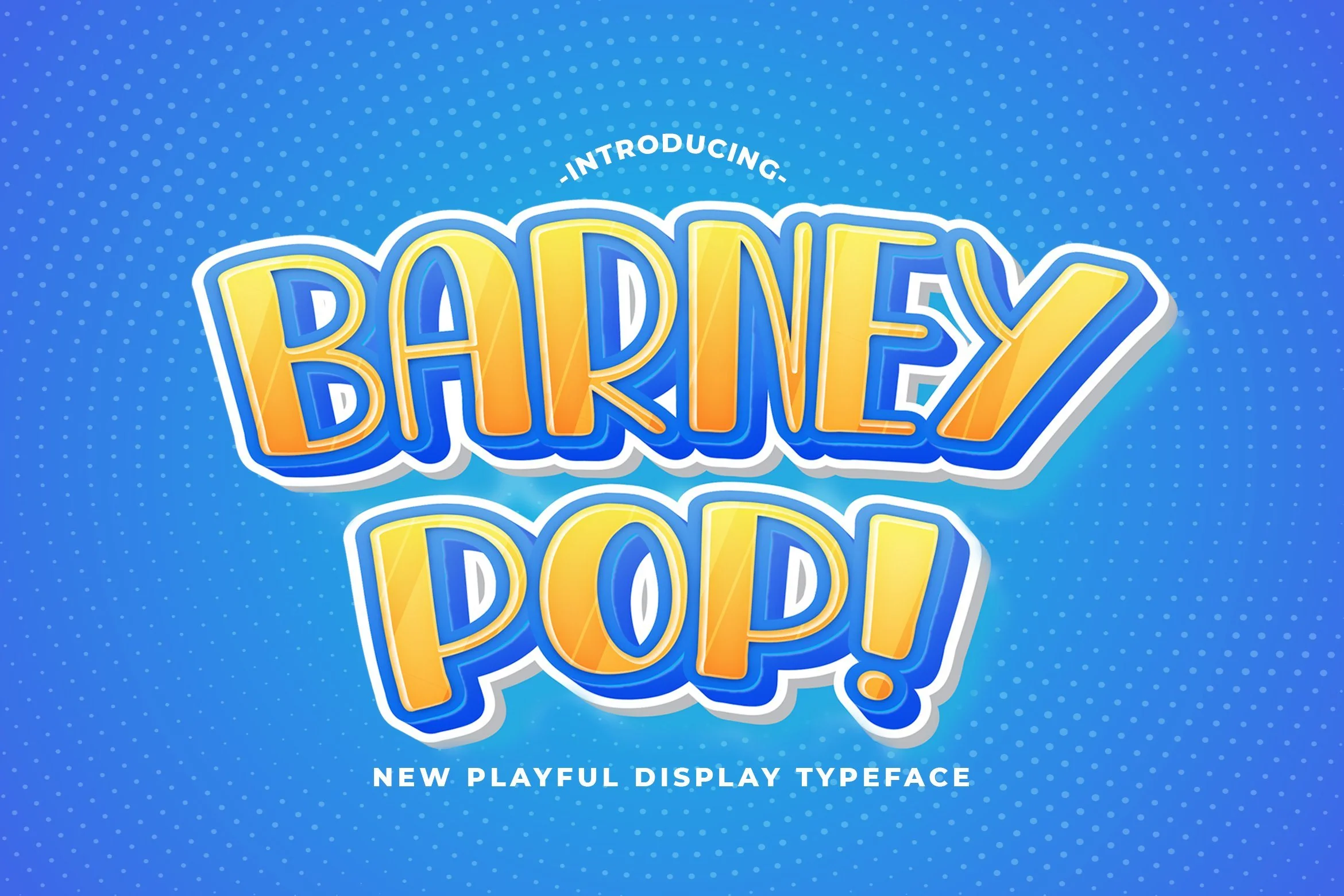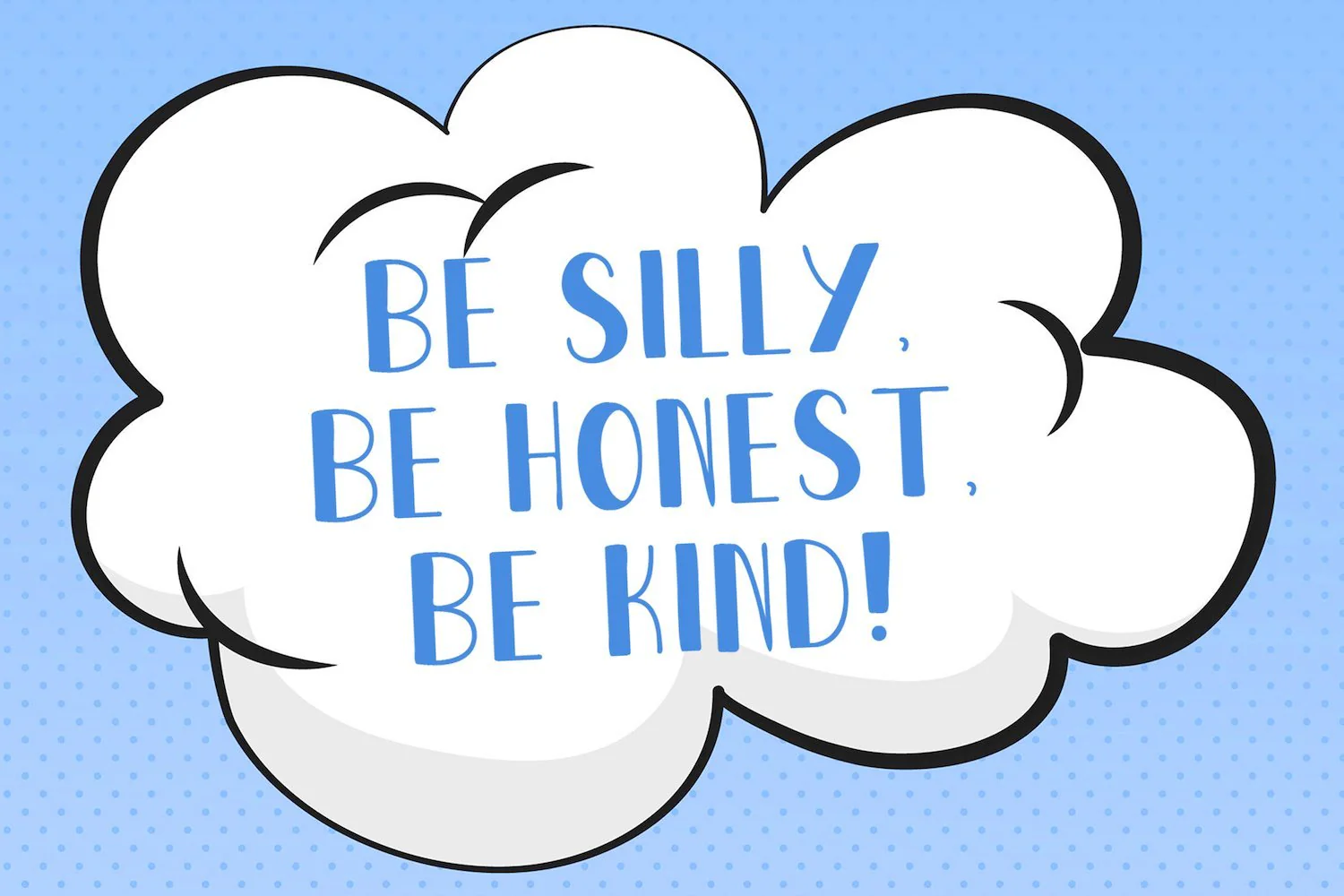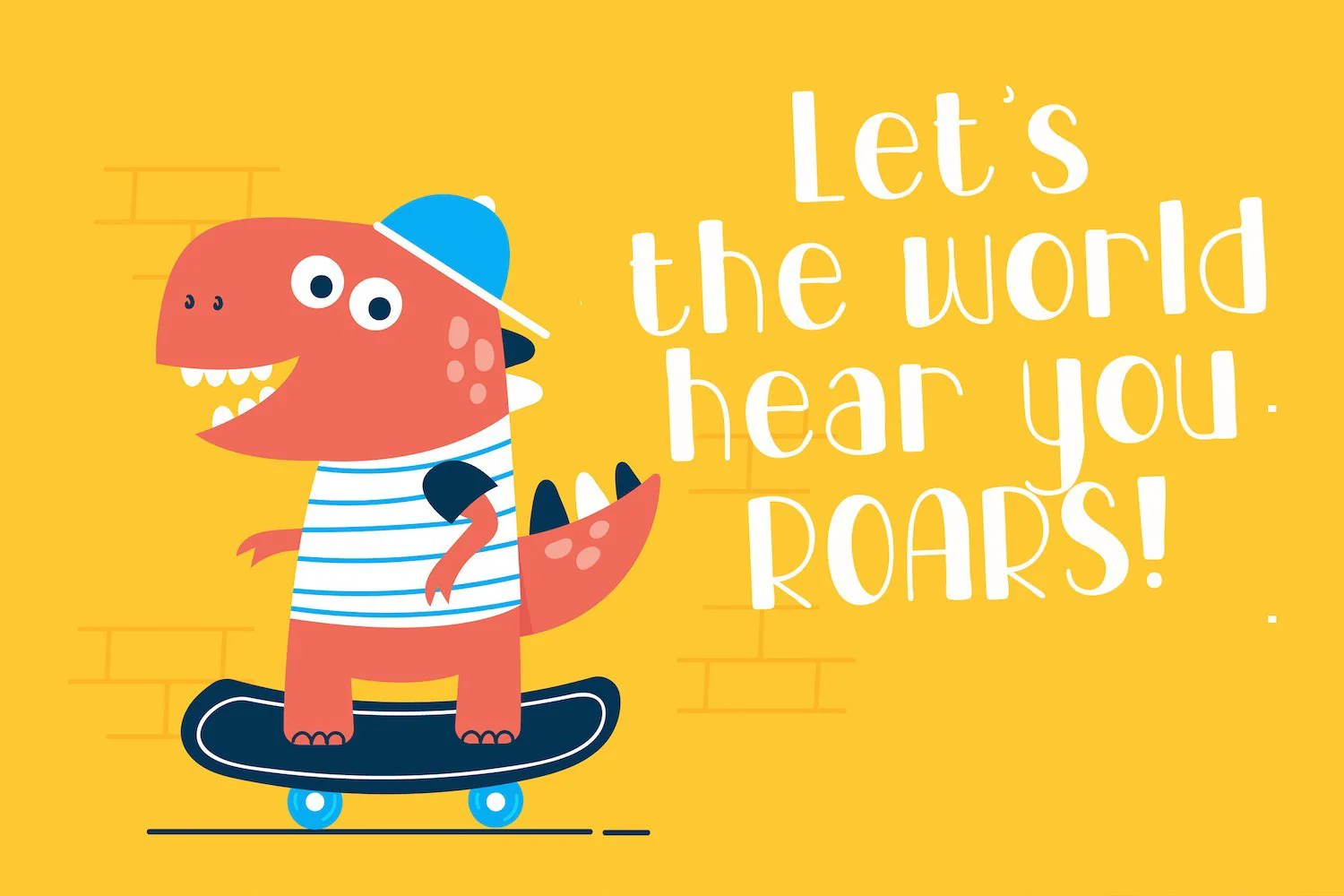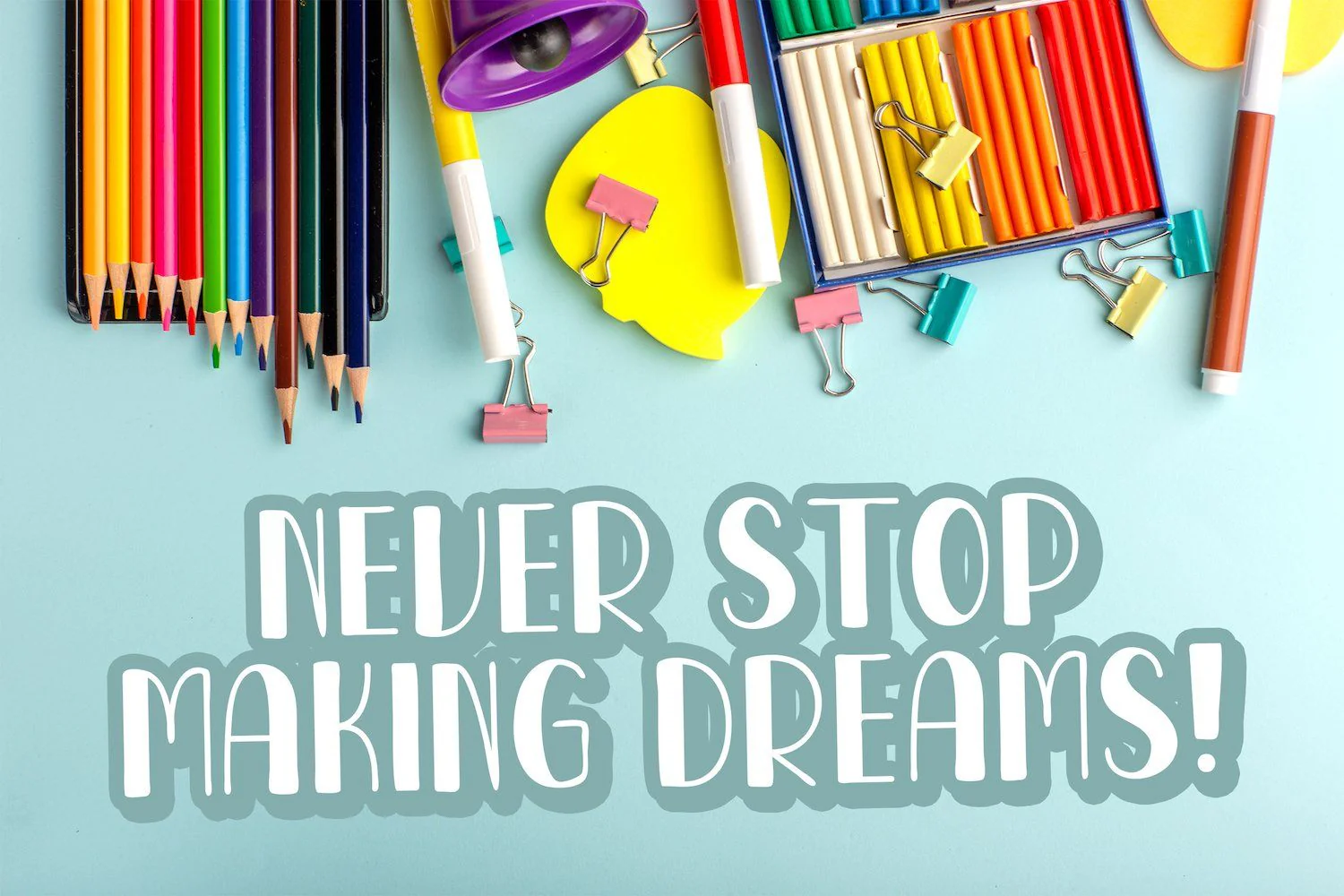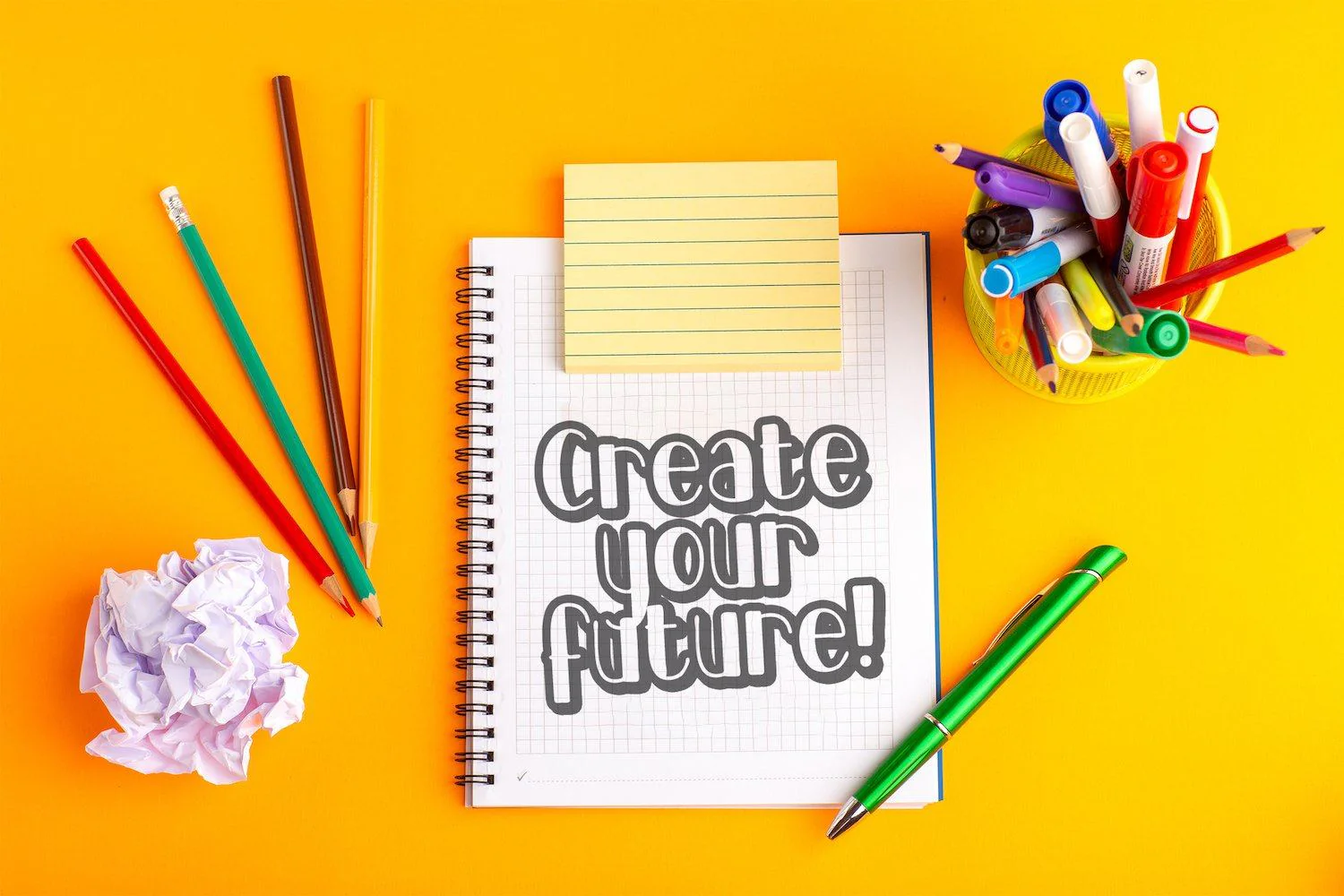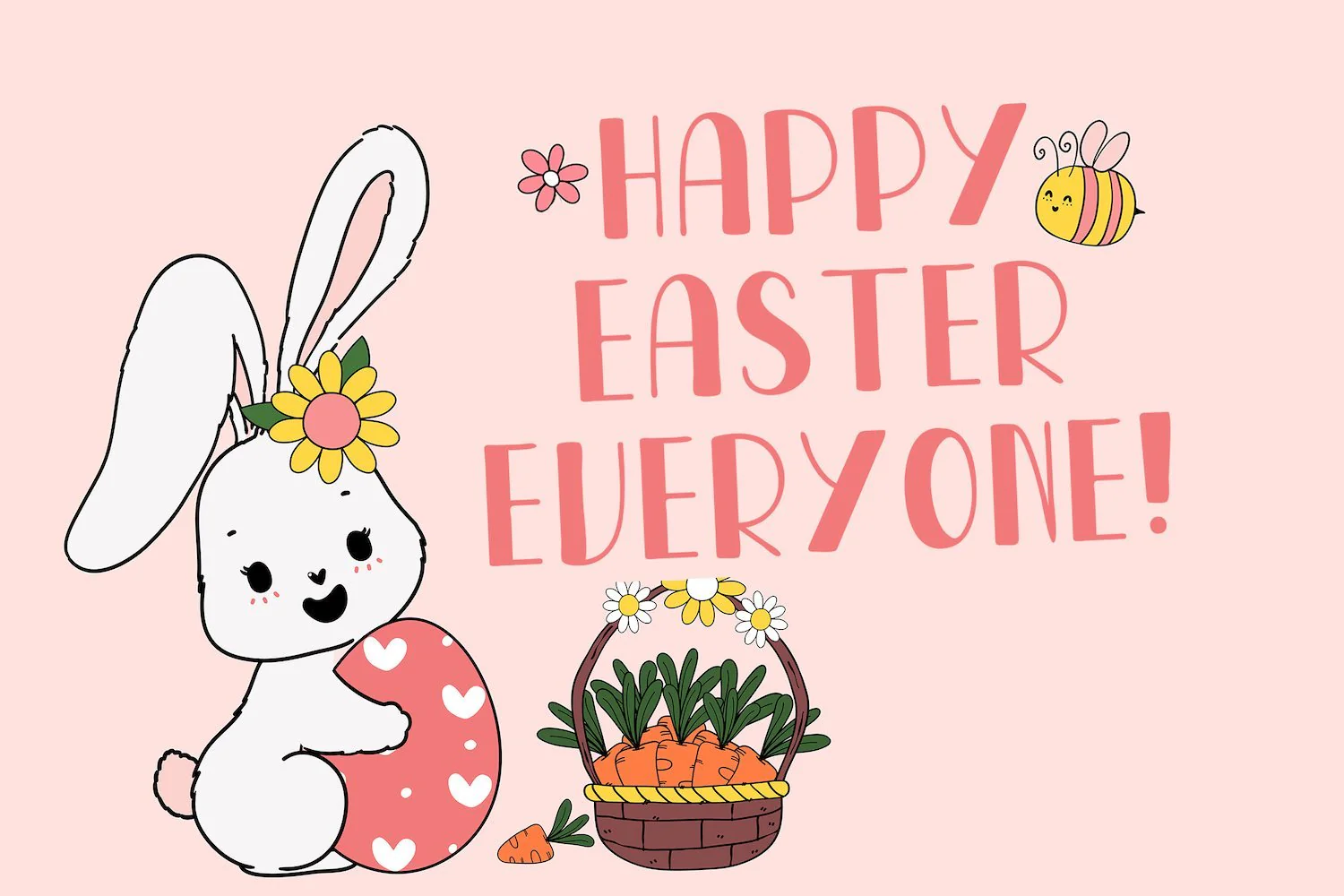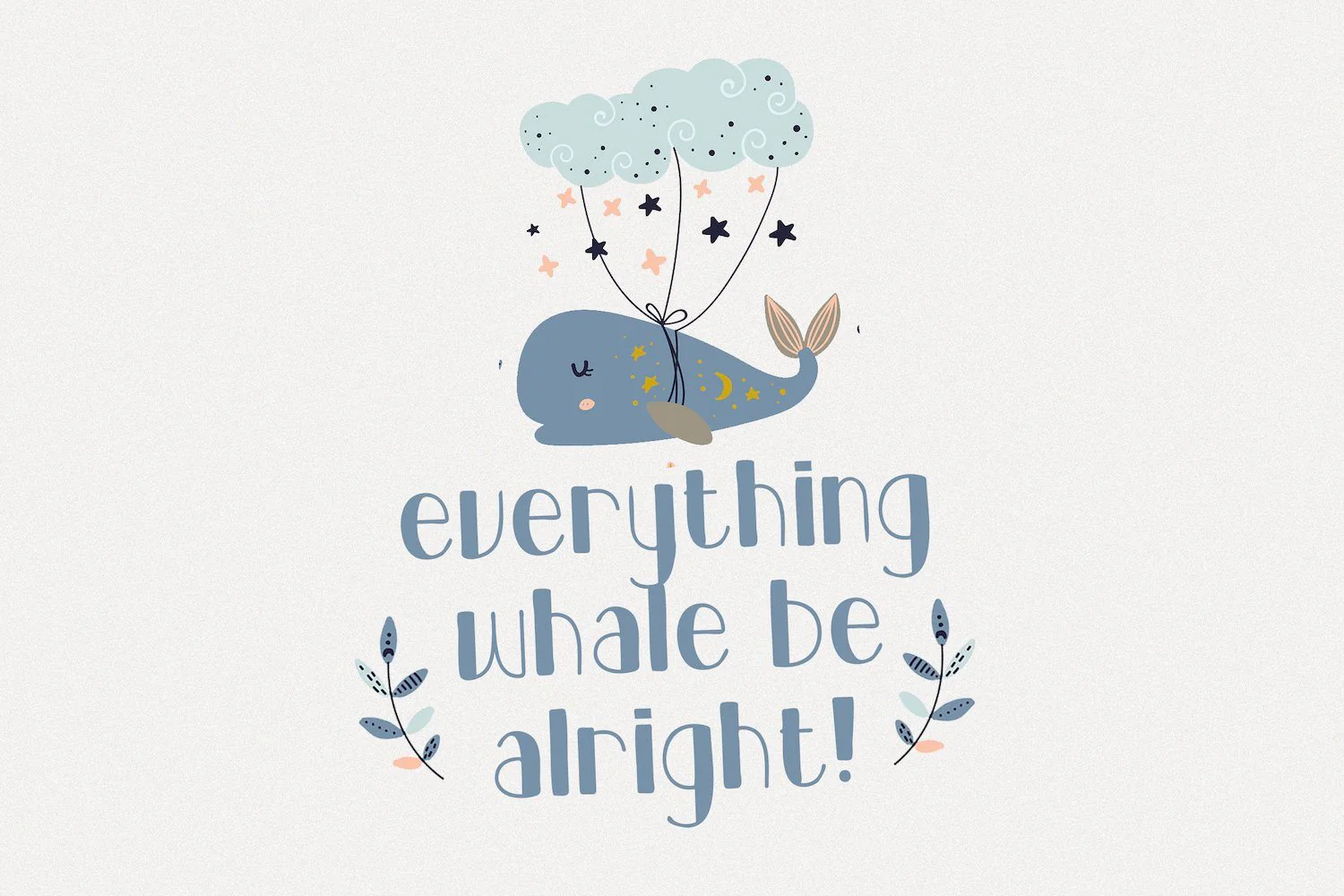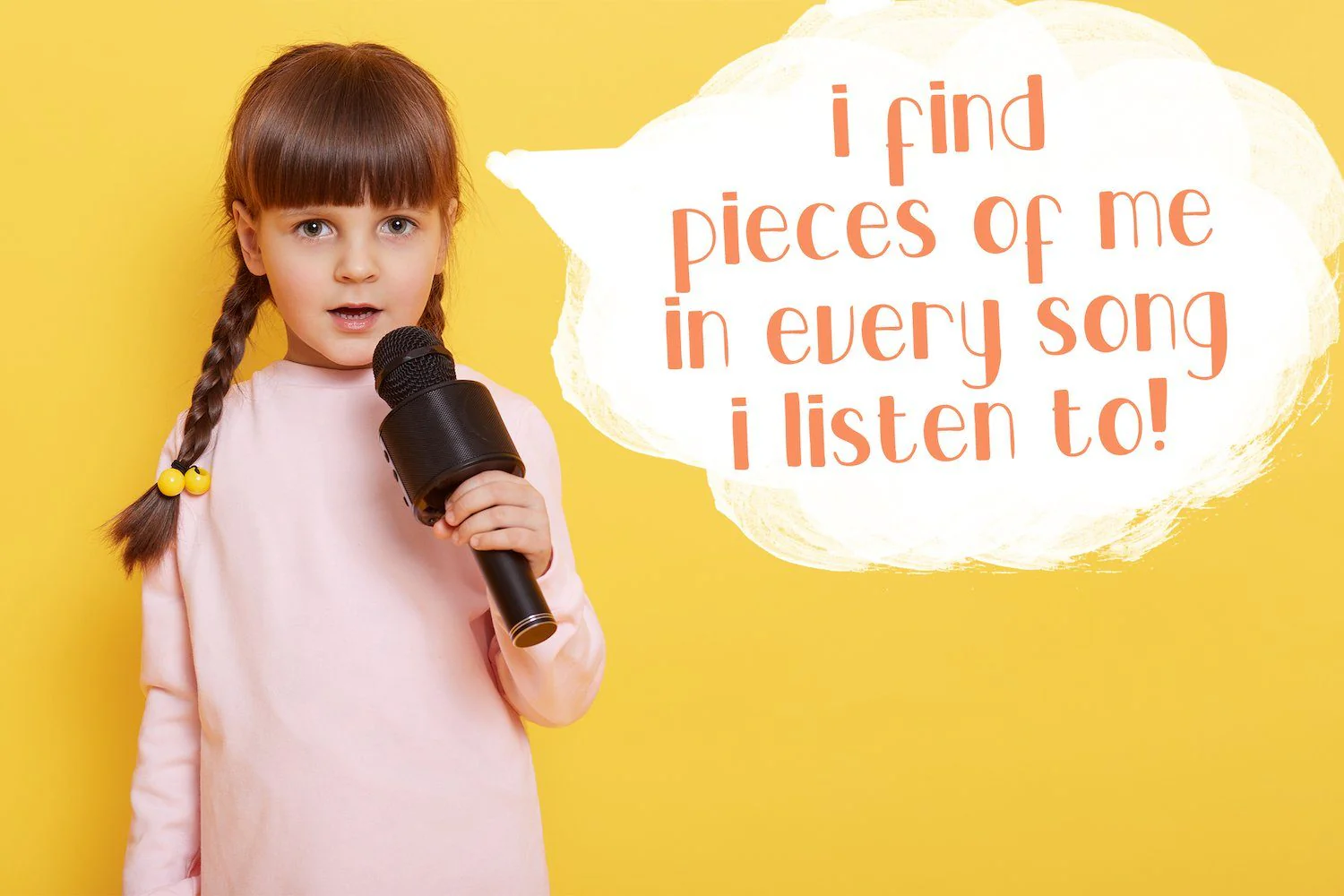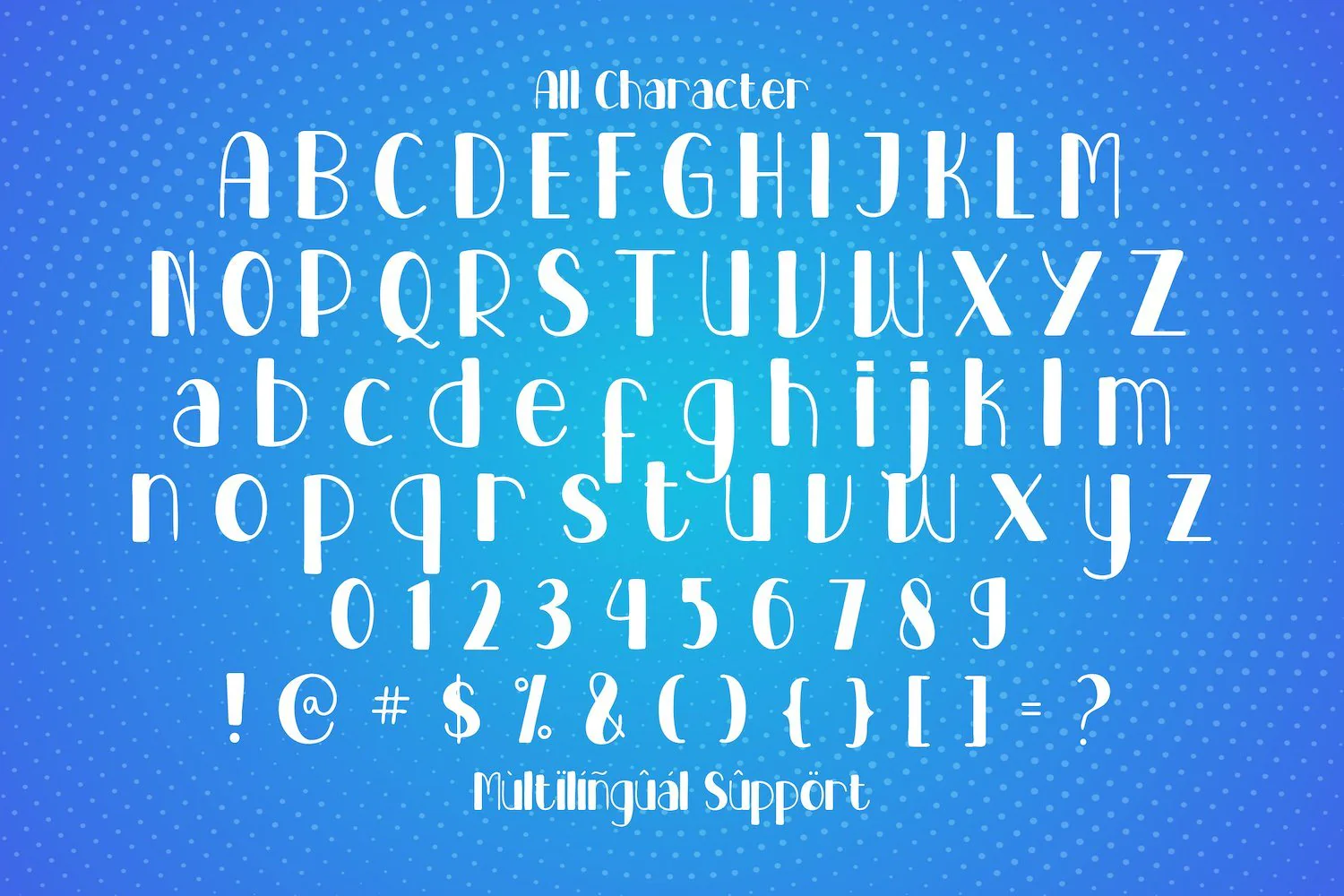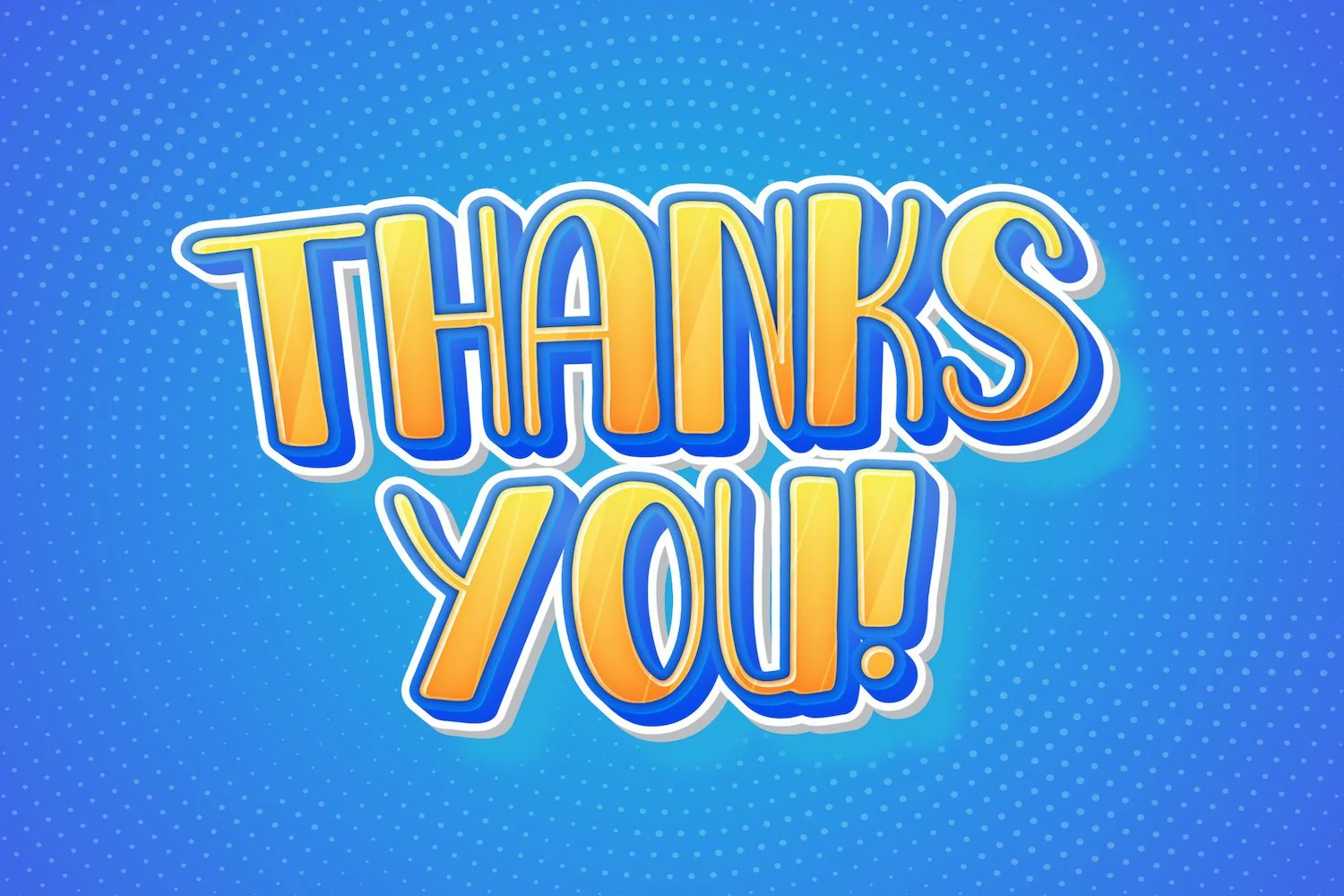
Barney Pop - Playful Display Font
Introducing Barney Pop - Playful Display Font
Barney Pop is a fun display font. Playful and fresh, this font will be a hit for each of your children or school projects!
Introducing Barney Pop - Playful Display Font
Barney Pop is a fun display font. Playful and fresh, this font will be a hit for each of your children or school projects!